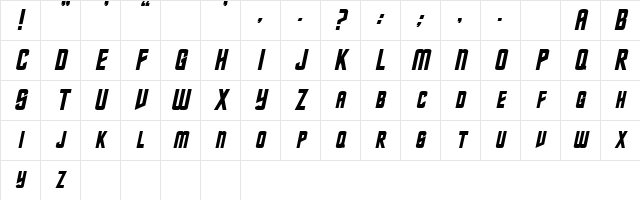
Nebula BoldItalic Free Font
Nebula BoldItalic
Nebula Family
Design Context for Nebula
Nebula is a composed and adaptable typeface that performs quietly and consistently across a wide range of design contexts. The slanted form adds forward momentum and visual energy. Its bold stroke weight gives it real presence on the page.
Pro Tip: Use Nebula for emphasis, pull quotes, and subheadings where its slanted energy can add rhythm to the layout.